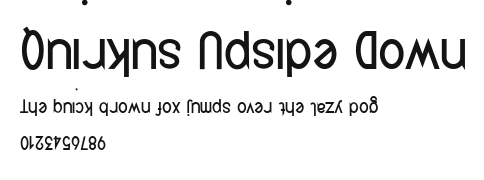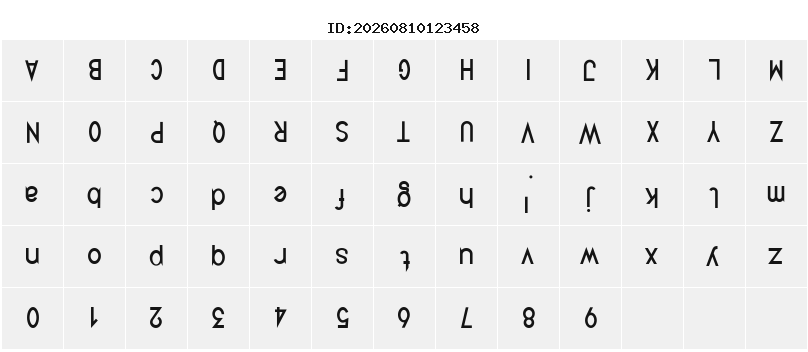
• Font Name: Quirkus Upside Down
• Designer: Peter Wiegel
About Quirkus Upside Down.ttf
Quirkus Upside Down.ttf is a modern, elegant sans-serif font designed for ultimate readability and visual harmony. Perfect for branding, headlines, web design, and print materials.